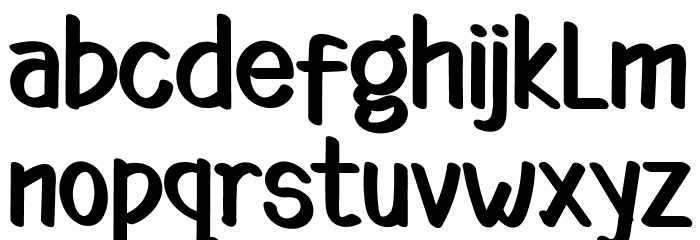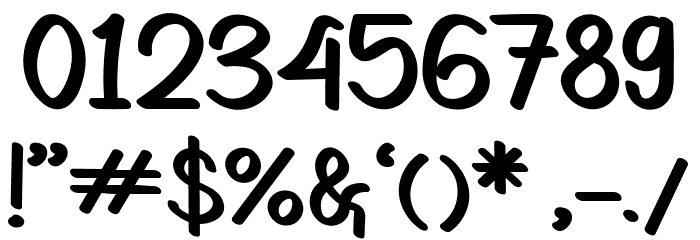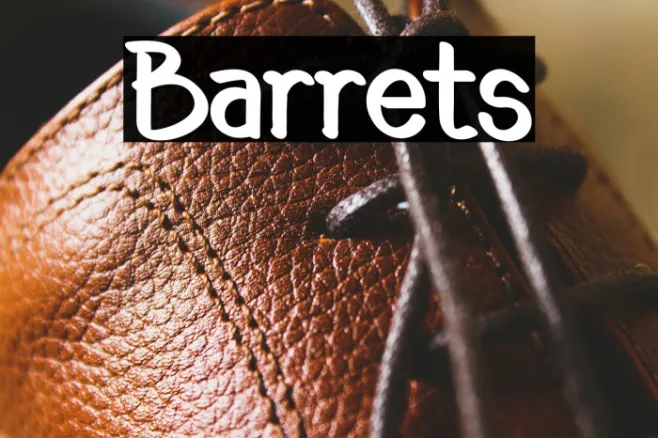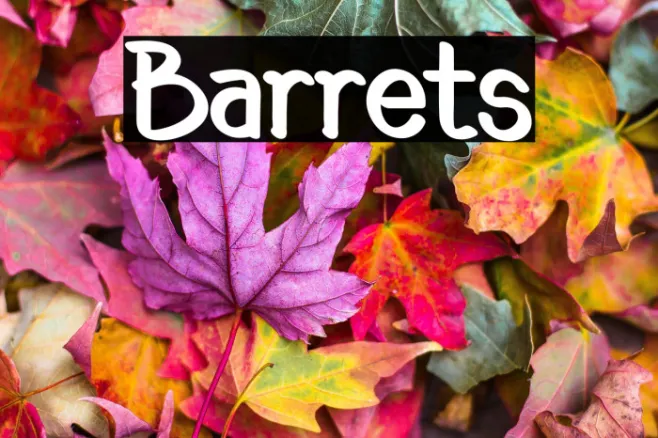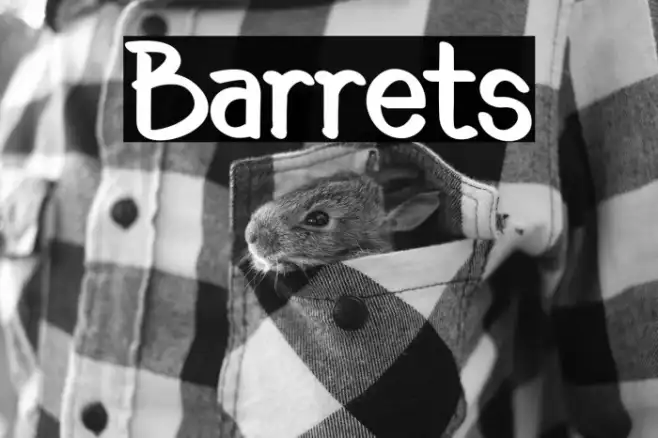
Barrets Font
This font features a playful and bold style, characterized by its thick, rounded strokes and slightly irregular shapes. The uppercase letters have a whimsical touch, with some characters like 'G' and 'J' incorporating unique curves and angles. The lowercase letters maintain a consistent style, with rounded edges and a friendly appearance. Numbers are bold and easily readable, while special characters are designed to match the overall playful aesthetic. This font exudes a sense of fun and creativity, making it suitable for informal and lighthearted designs.
A playful, bold font with rounded strokes and whimsical character shapes.
- Font: Barrets
- Proposed Projects: Ideal for children's books, playful branding, party invitations, and casual posters.
- Overall Style: Playful